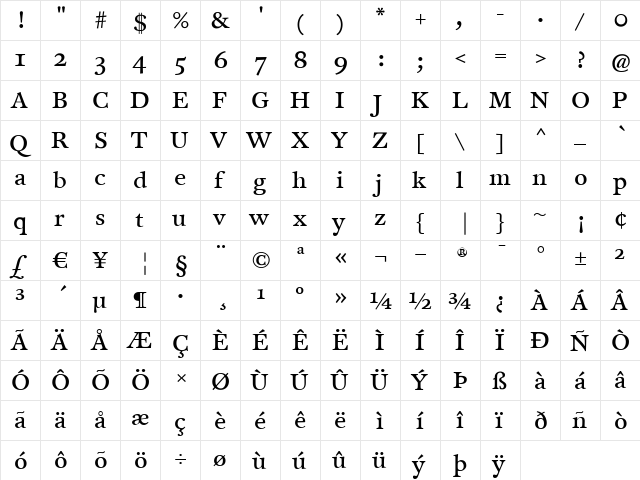
CliffordSix Regular
| Foundry | Akira Kobayashi, . Published by FontShop International. FontFont Release |
Design Context for CliffordSix Typeface
CliffordSix is a composed and adaptable typeface that performs quietly and consistently across a wide range of design contexts.